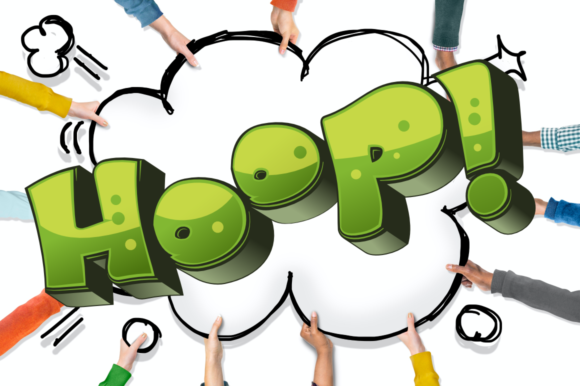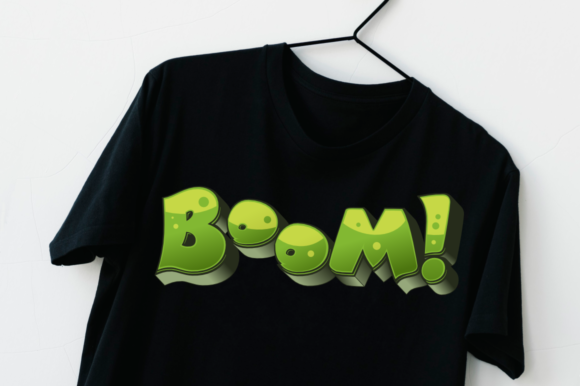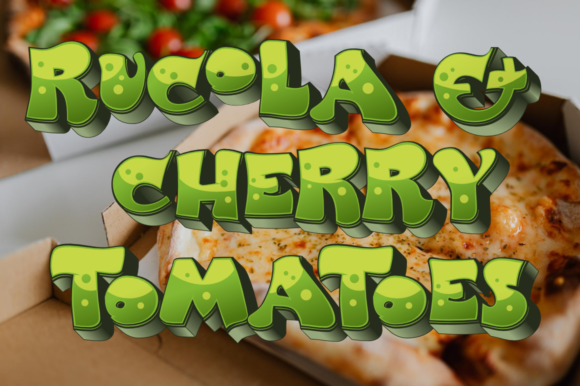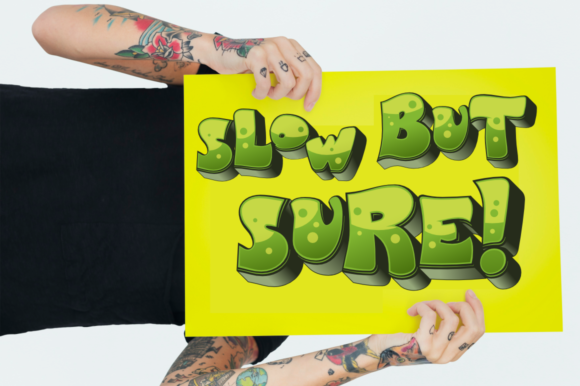
Big Party O2 Green Font
Big Party O2 Green is a vibrant and eye-catching color font that can add a lively and festive touch to your crafting projects. Whether you’re creating party invitations, greeting cards, scrapbooking pages, or any other creative endeavor, Big Party O2 Green is sure to make a statement.
With its bold and playful design, this color font is perfect for celebratory occasions, themed parties, or any project that requires a fun and energetic vibe. The unique look of the font, combined with its vibrant colors, allows you to create standout designs that capture attention and bring joy to the viewer.
To make the most of Big Party O2 Green, consider pairing it with other complementary fonts or graphic elements to create visually appealing compositions. Experiment with different colors, sizes, and styles to achieve the desired effect and ensure your crafting projects stand out.